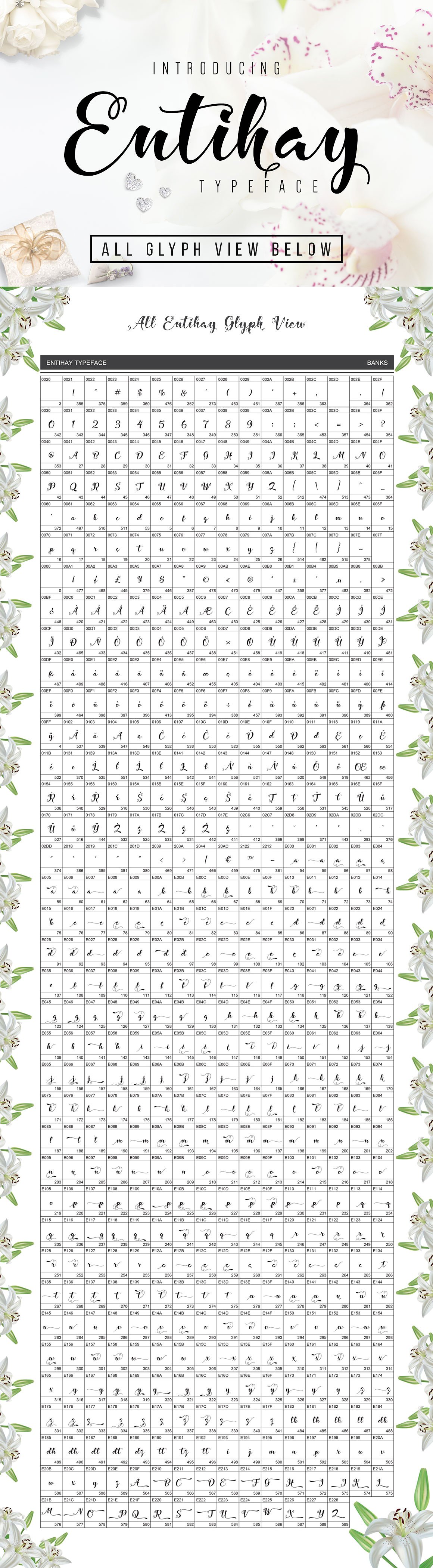
Entihay Script Font
Entihay Typeface is a beautiful handwriting based script. Suitable for Logotype, posters, wedding invitations, greeting cards, design of water-based paints, correspondence, and a variety of other presentation purposes.